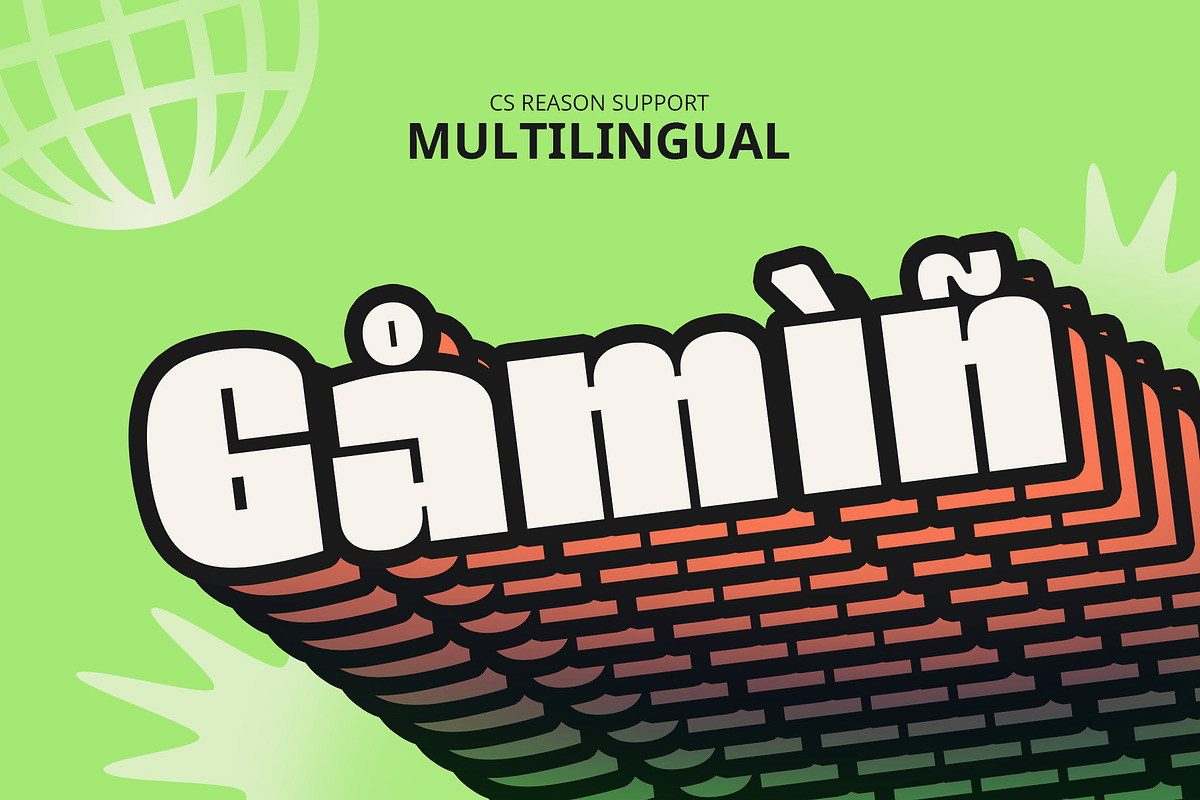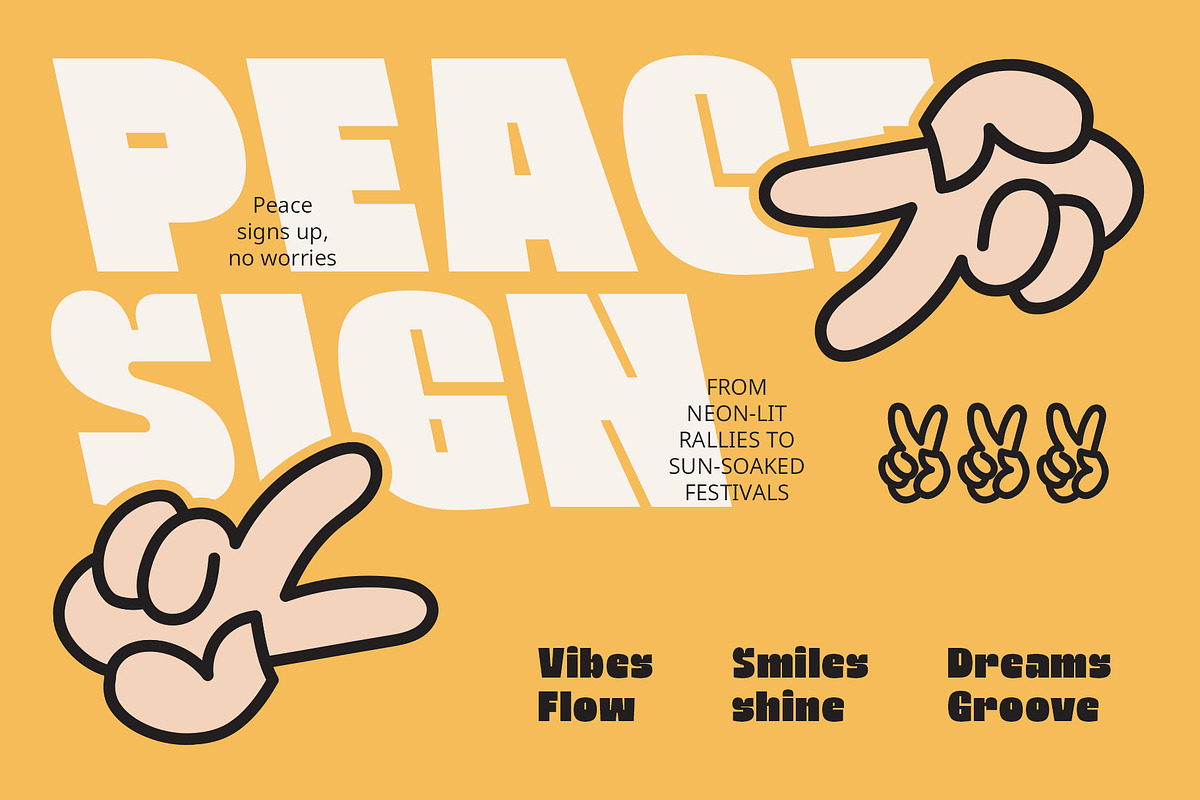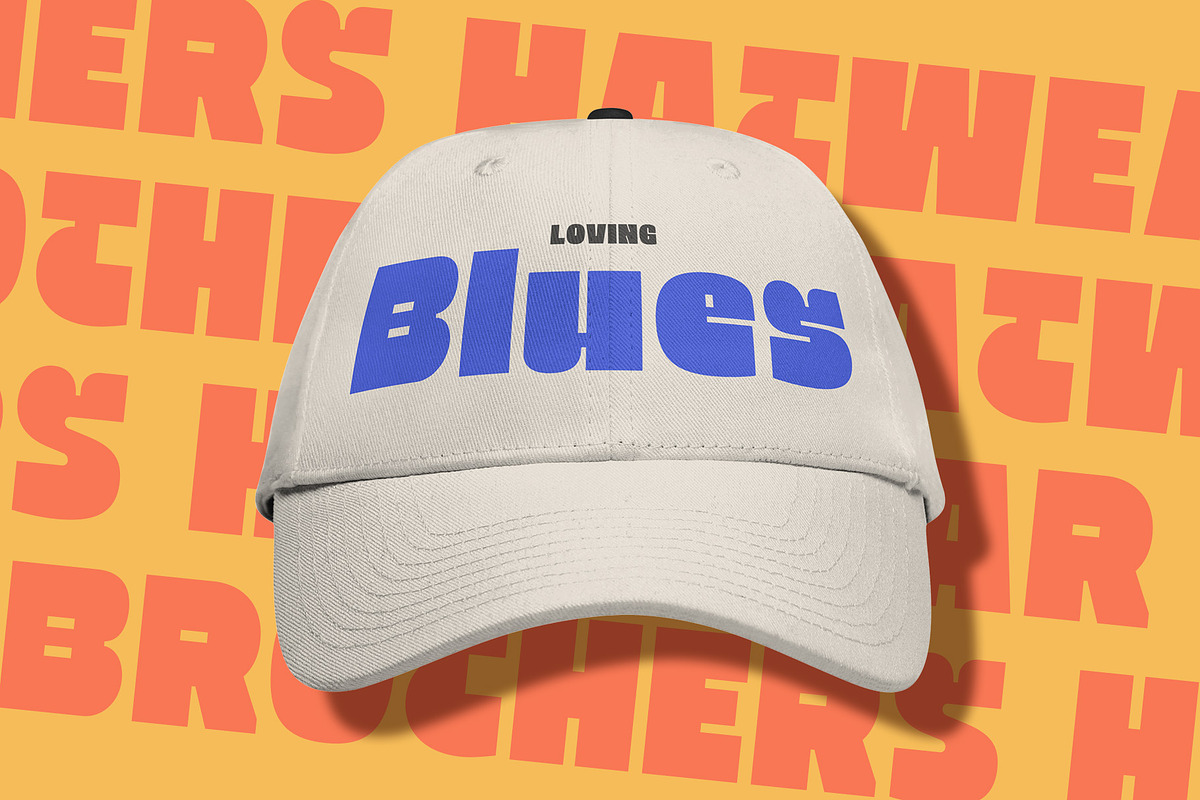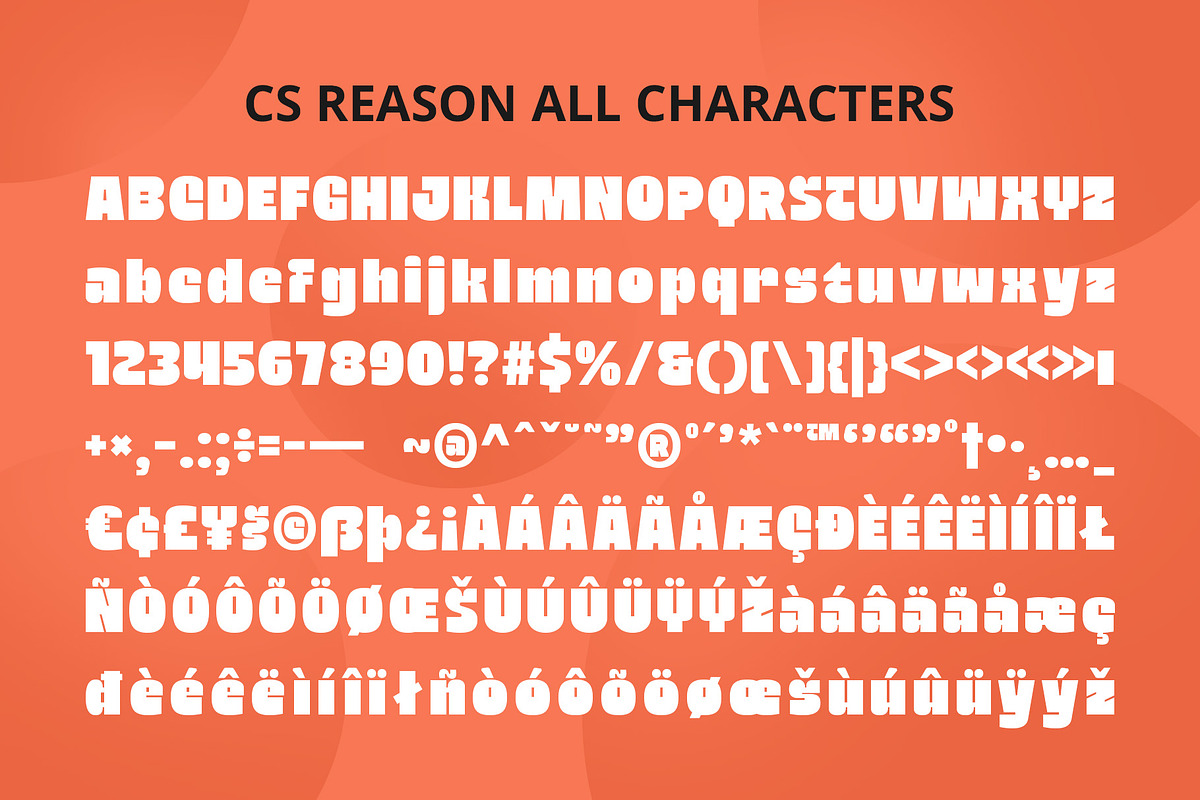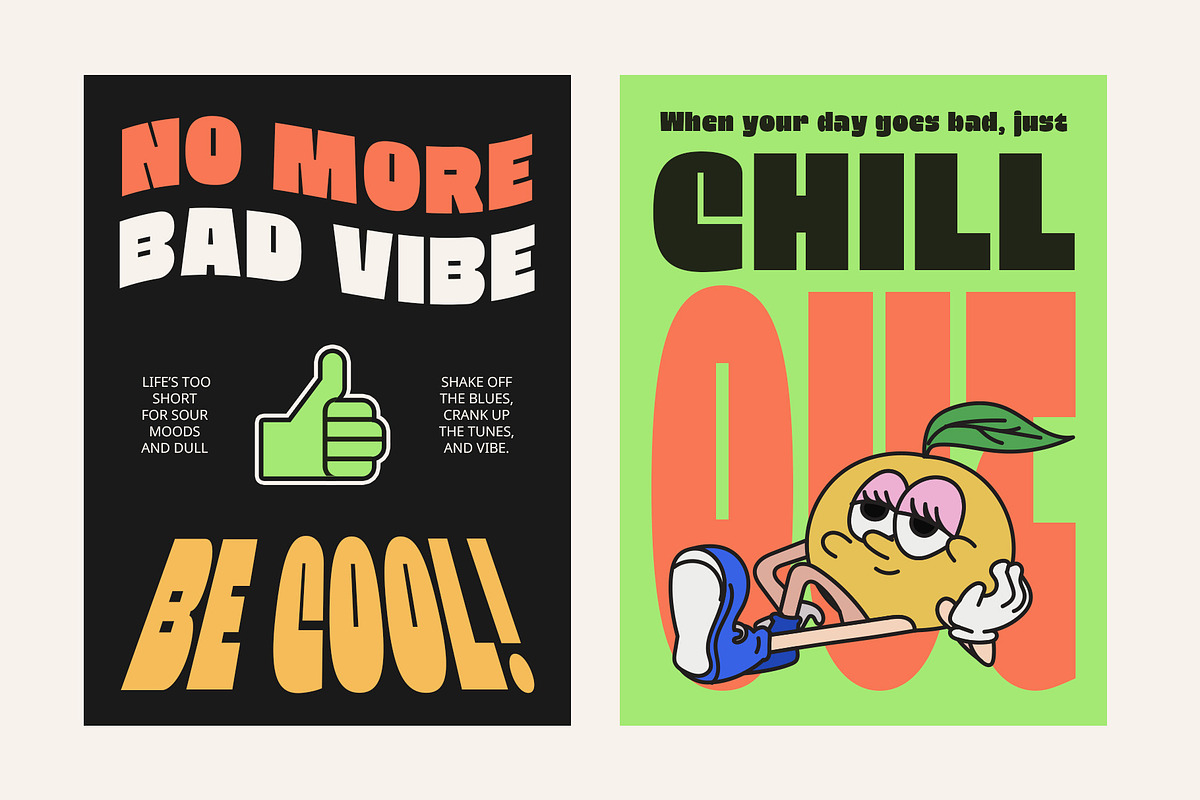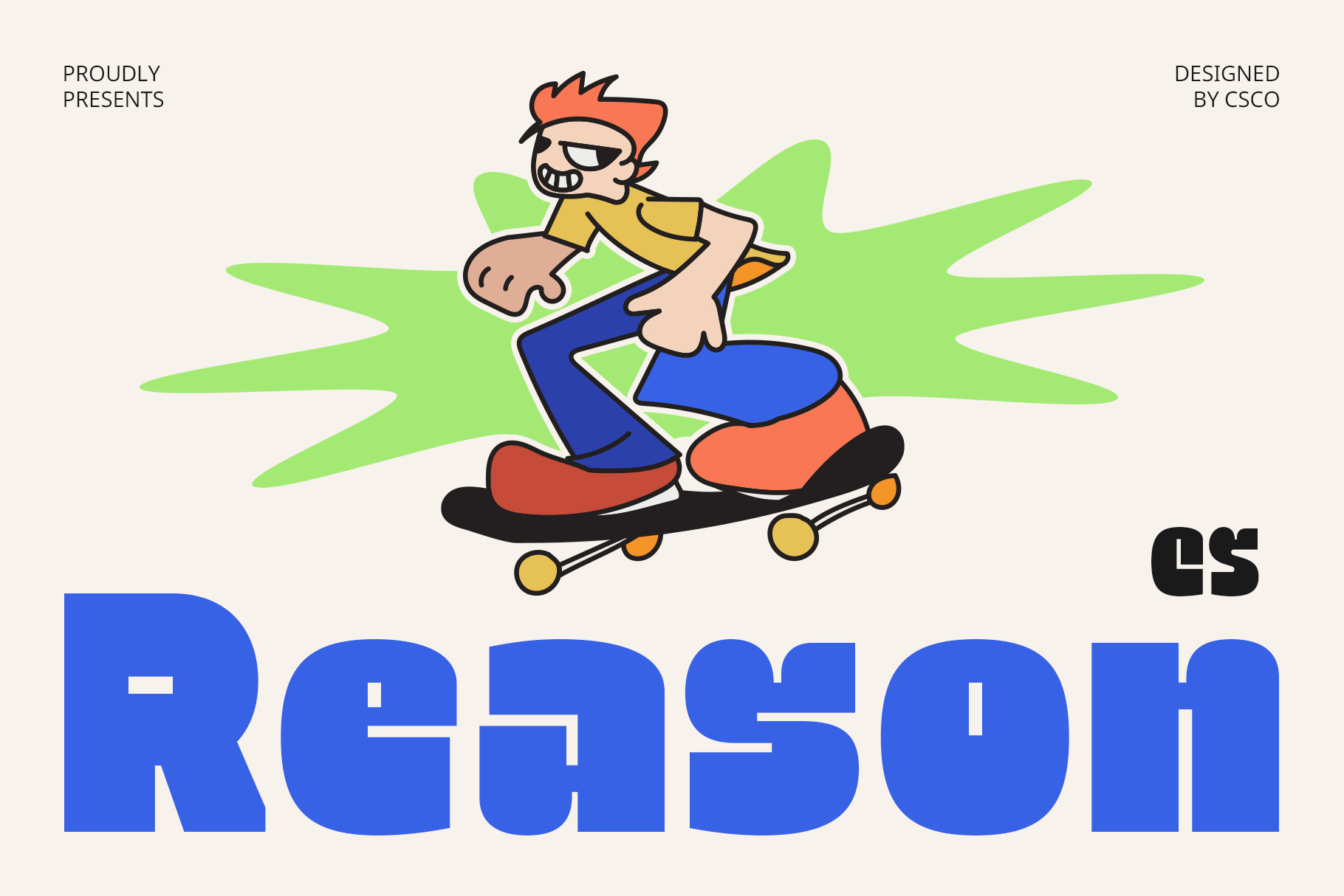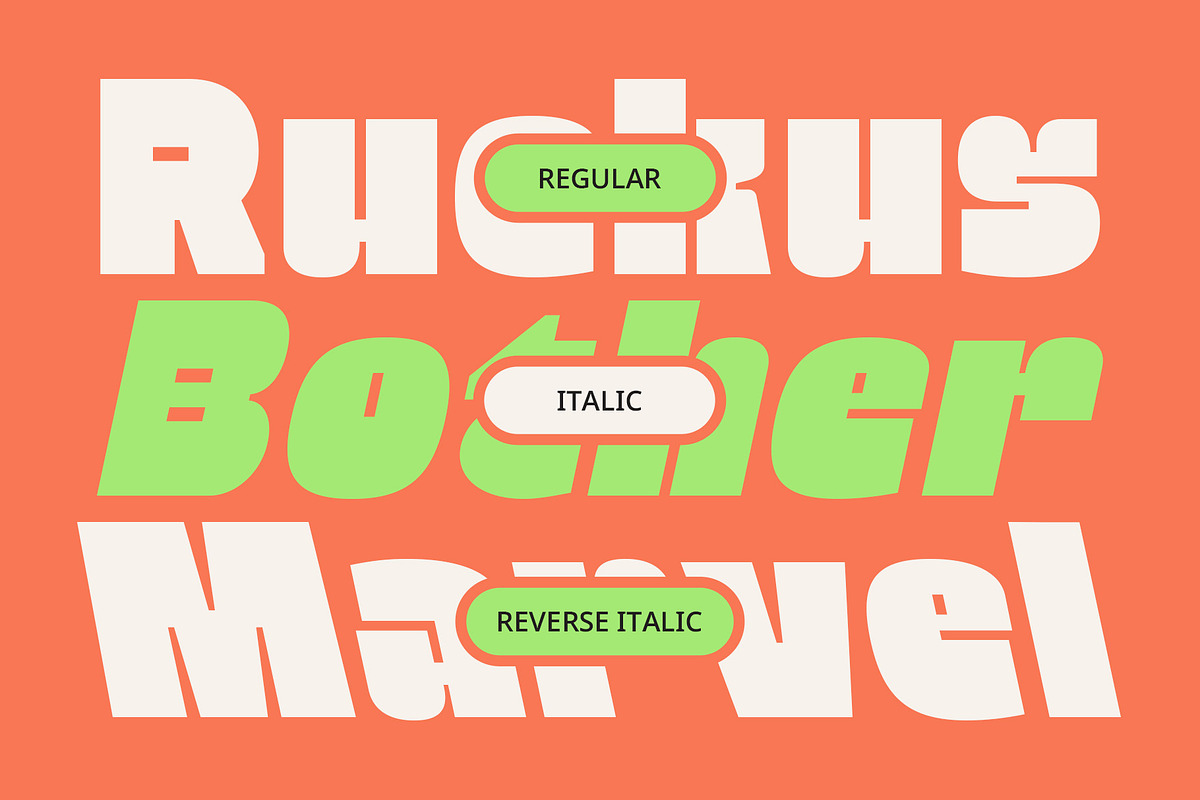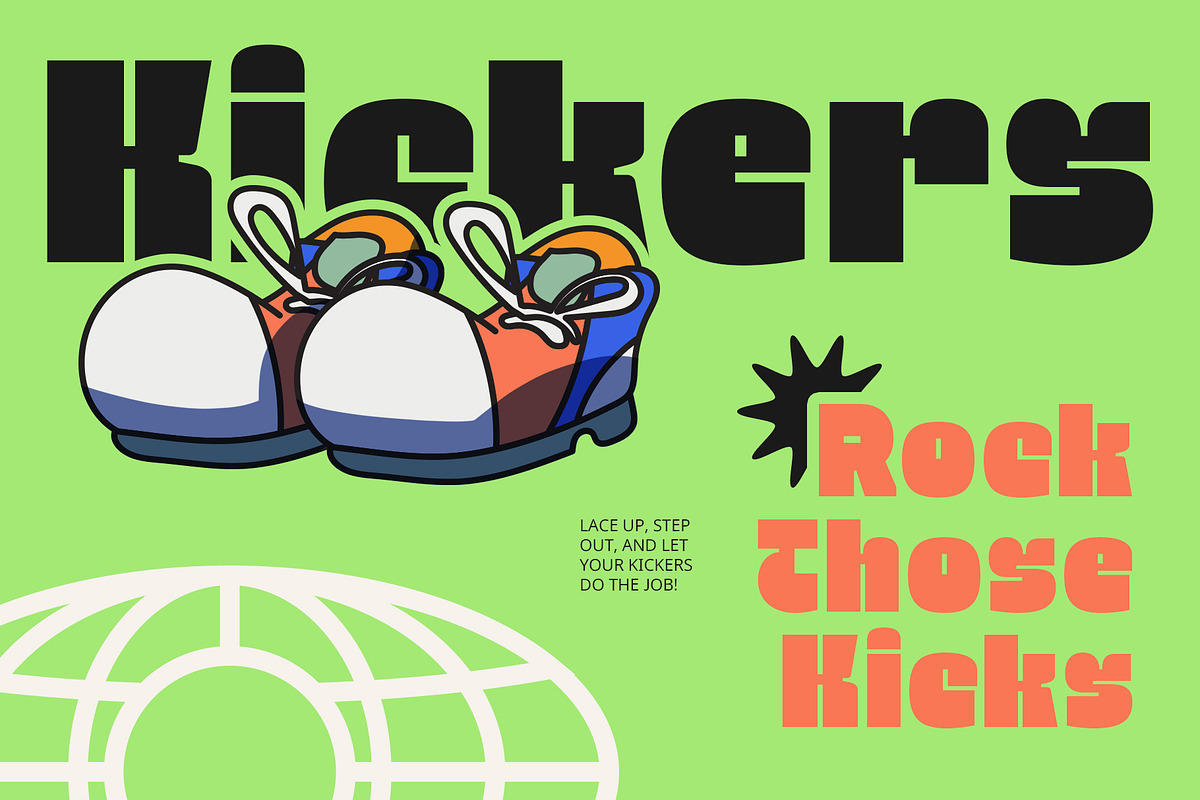
CS Reason – Bold Font
CS Reason – Bold Font: Funky, Playful, and Full of Energy
Modern Sans Serif with a Bold Personality CS Reason is a modern sans-serif font with a bold and dynamic shape, designed to bring a funky and playful vibe to any project. Its expressive letterforms create a strong visual impact while maintaining a fun and approachable feel. Whether used for branding or artistic displays, this font delivers a confident and lively impression.
Strong Structure with Unique Details Featuring solid proportions and distinctive details like rounded corners and slightly unconventional geometric shapes, CS Reason offers a striking balance between structure and playfulness. Its bold yet friendly character ensures excellent readability while adding a fresh and creative touch to typography.
Perfect for Bold and Playful Designs With its fun yet professional style, CS Reason is an excellent choice for branding, posters, product packaging, and creative projects. It injects personality and excitement into any design, making it ideal for industries that value uniqueness, such as fashion, entertainment, and advertising.
Versatile for Modern Visual Identity Whether for eye-catching logos, engaging social media graphics, or dynamic headlines, CS Reason adapts seamlessly to various design needs. Its strong, confident design ensures a modern, stylish, and high-impact appearance, perfect for projects that aim to stand out with energy and creativity.